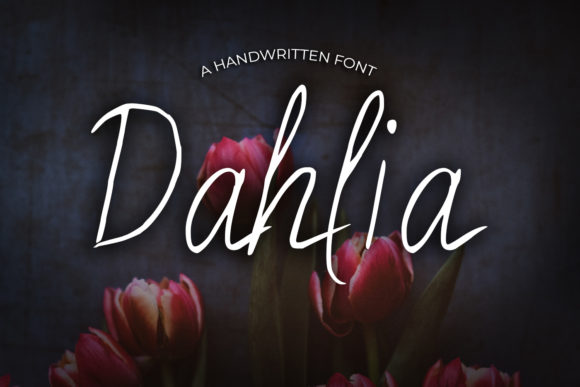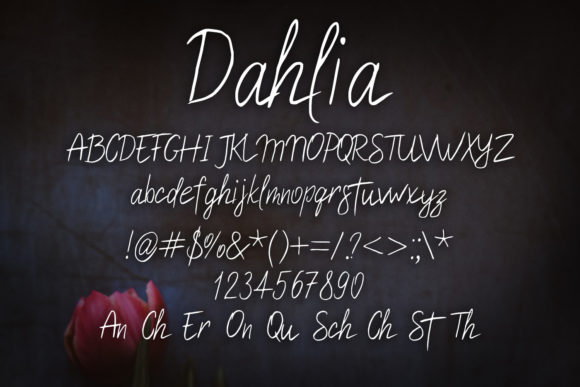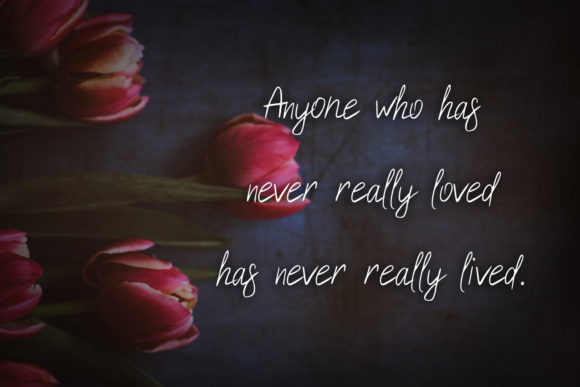
Dahlia Font
About Dahlia Font
Dahlia is a dainty and delicate handwritten font. It can be used for various purposes such as logos, wedding invitations, headings, t-shirts, letterhead, signage, labels, news, posters, badges and so much more.